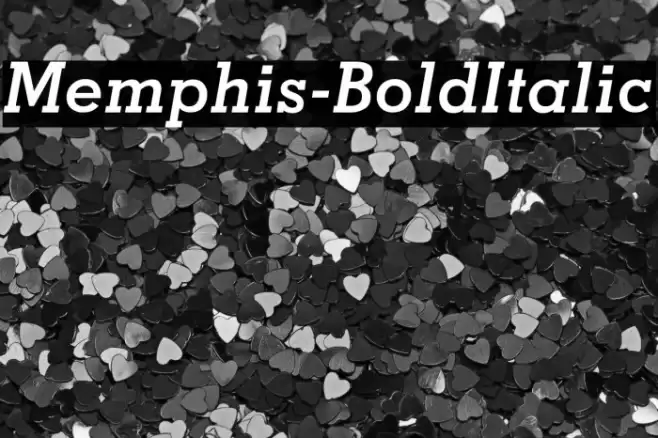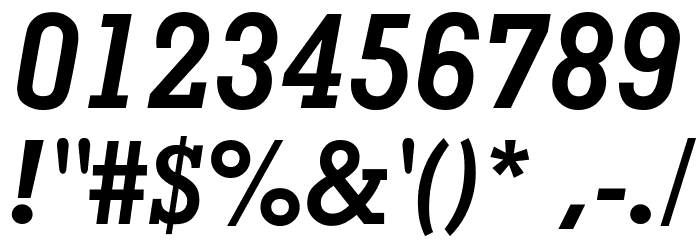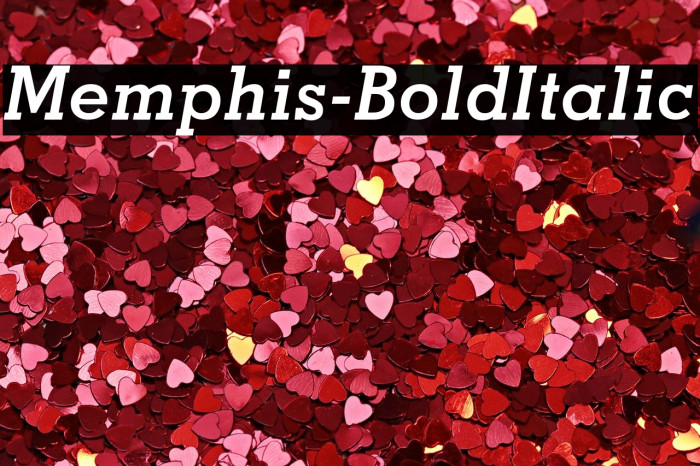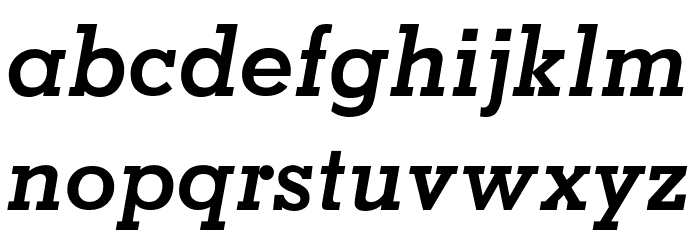
Memphis-BoldItalic Font
Memphis-BoldItalic Description
This font exhibits a bold and italicized style, characterized by its strong geometric shapes and clean lines. The letters are well-defined with a slight slant, giving it a dynamic and modern appearance. The uppercase and lowercase letters maintain a consistent weight, providing a balanced look. The numerals are clear and distinct, ensuring readability. Special characters are designed with the same boldness and clarity, making them stand out effectively. This font's structure is robust, making it suitable for various design applications.
A bold, italicized font with geometric shapes and a modern style from Serif fonts.
- Proposed Projects: Ideal for branding, headlines, posters, and any project requiring a strong, modern typeface.